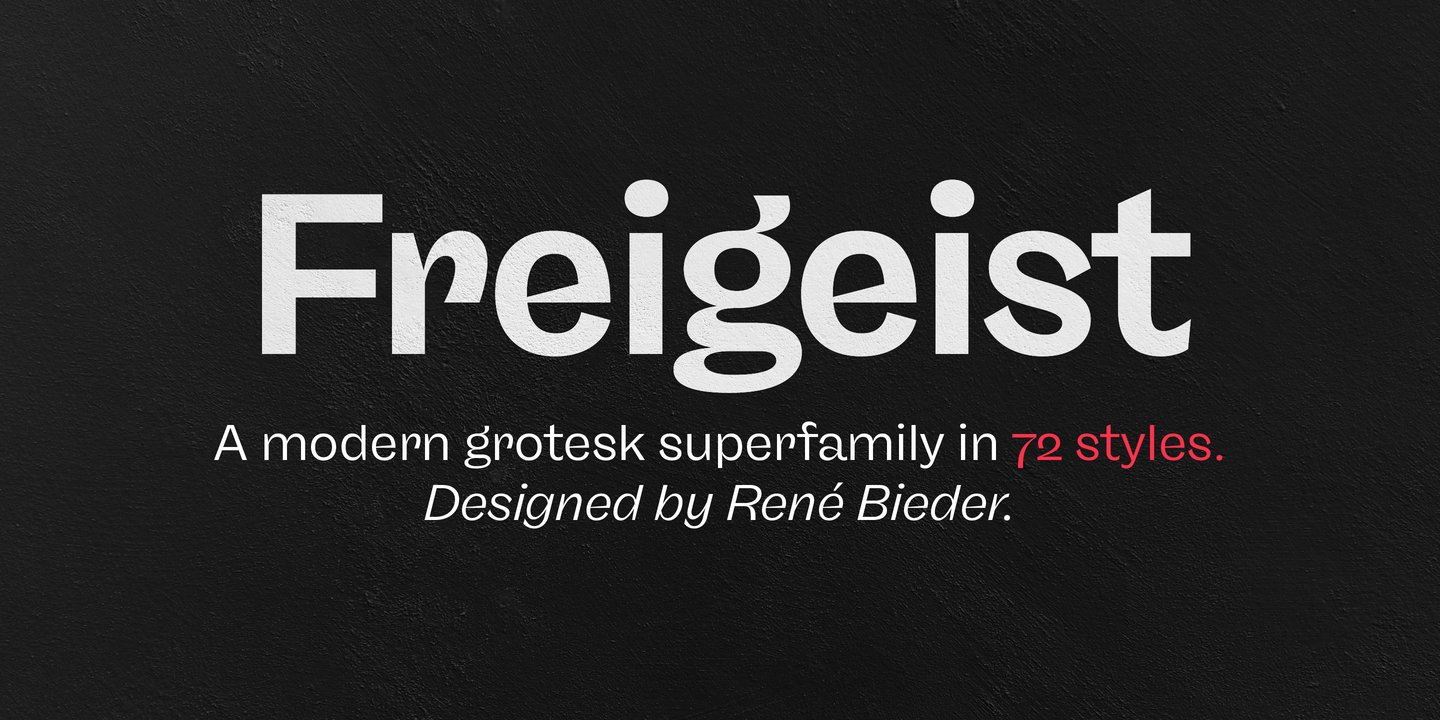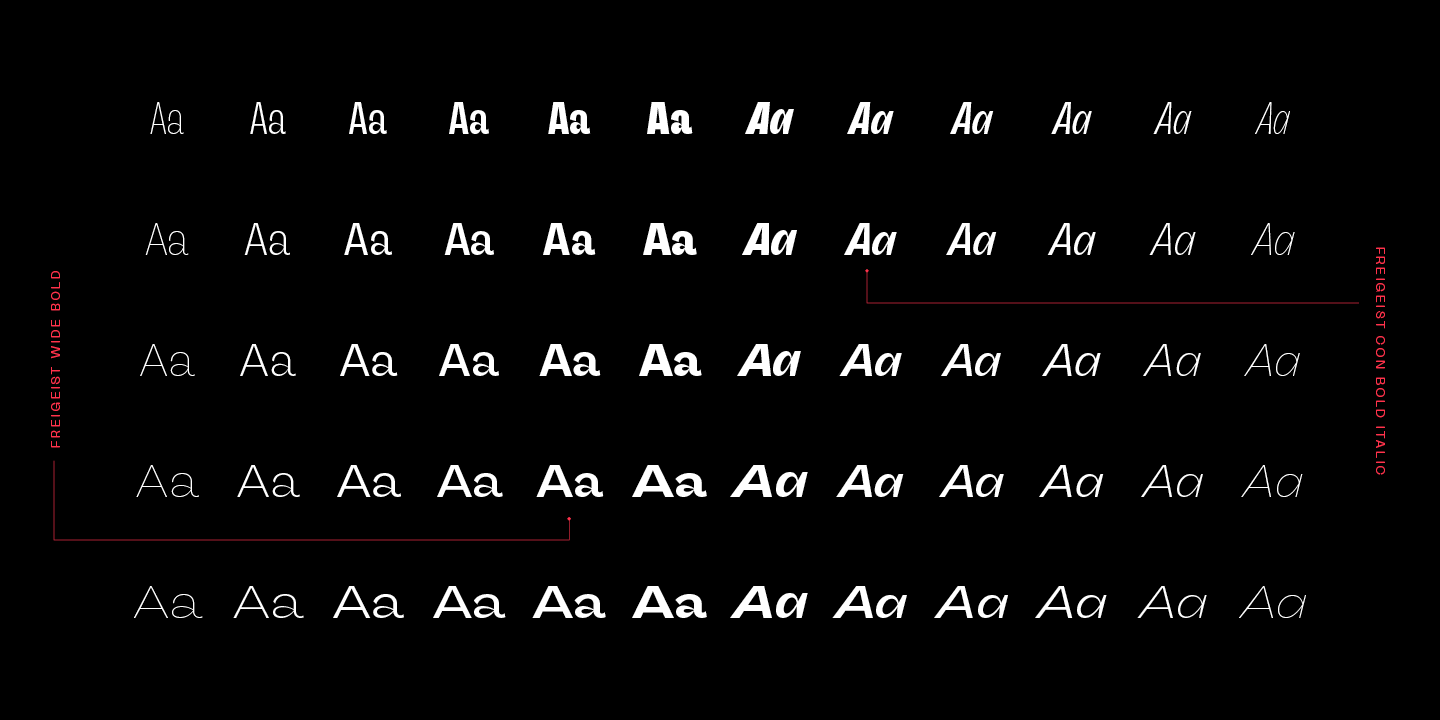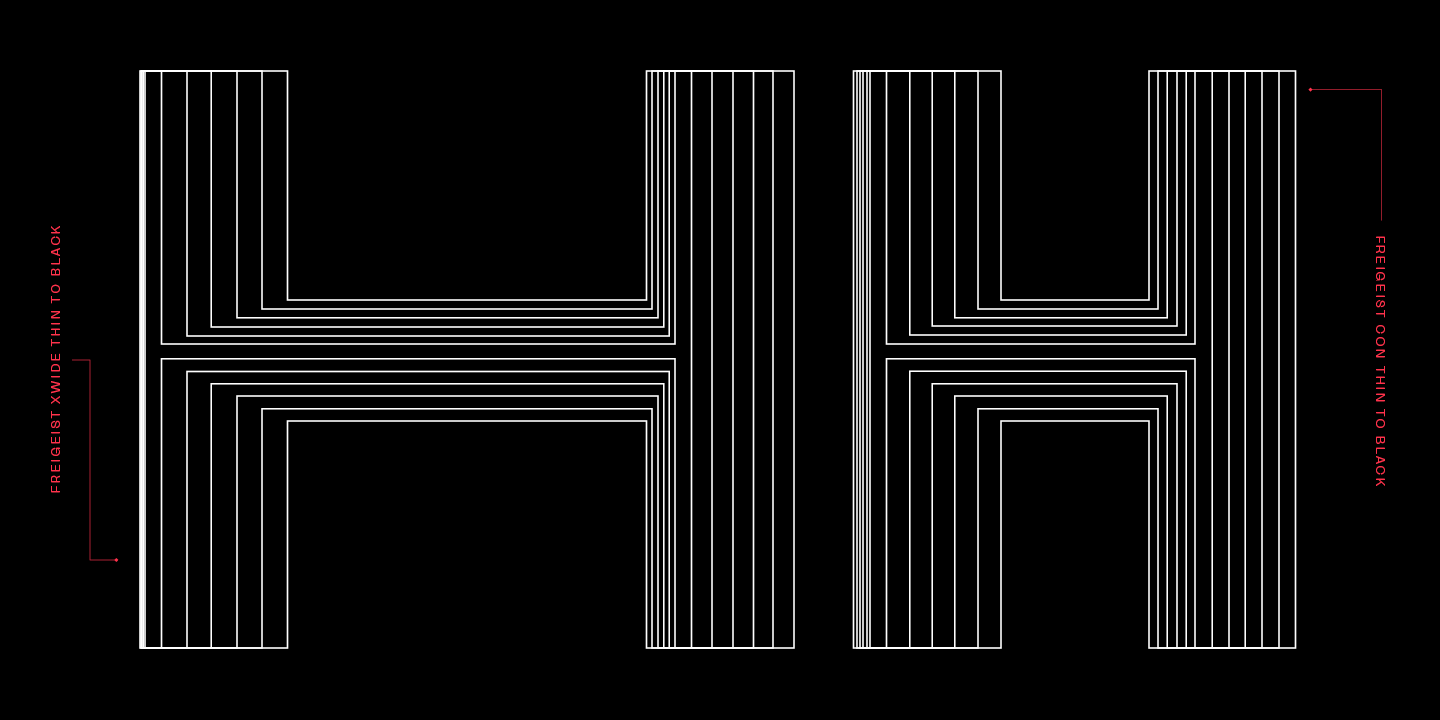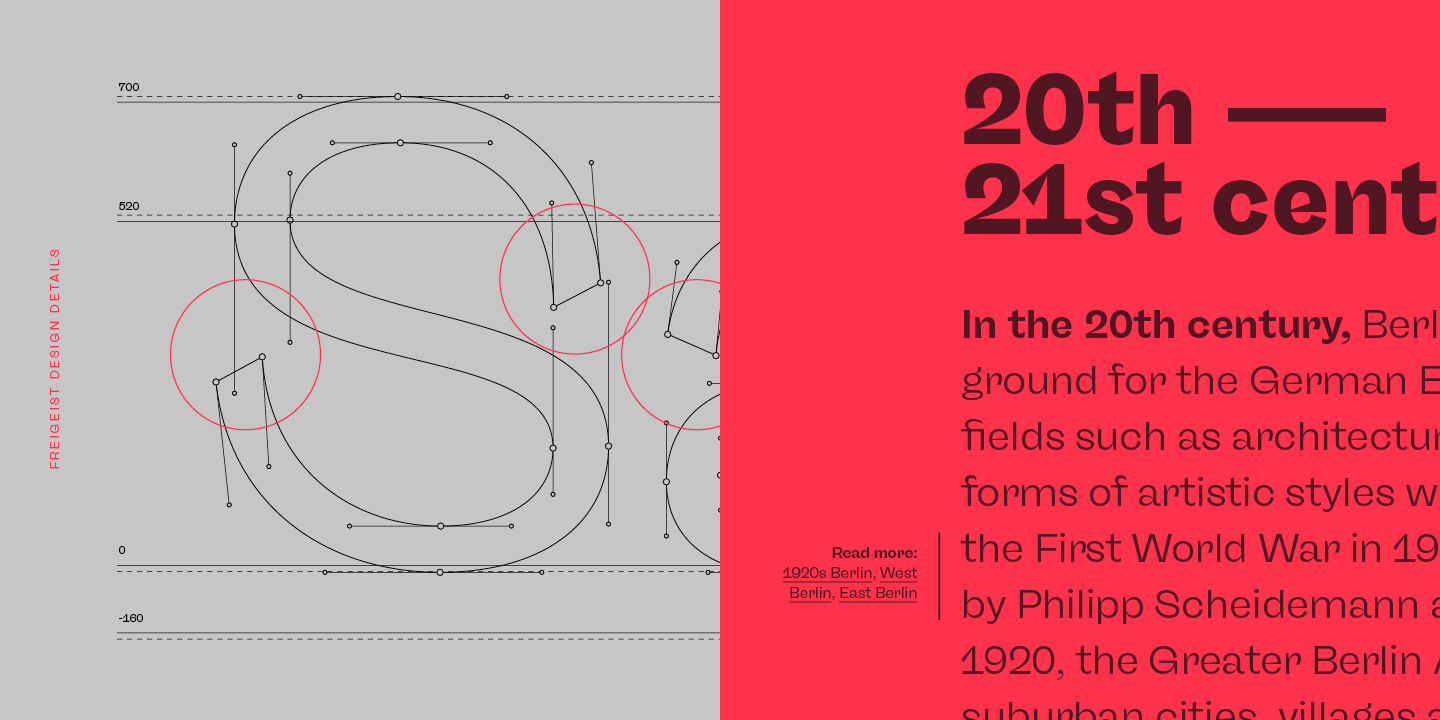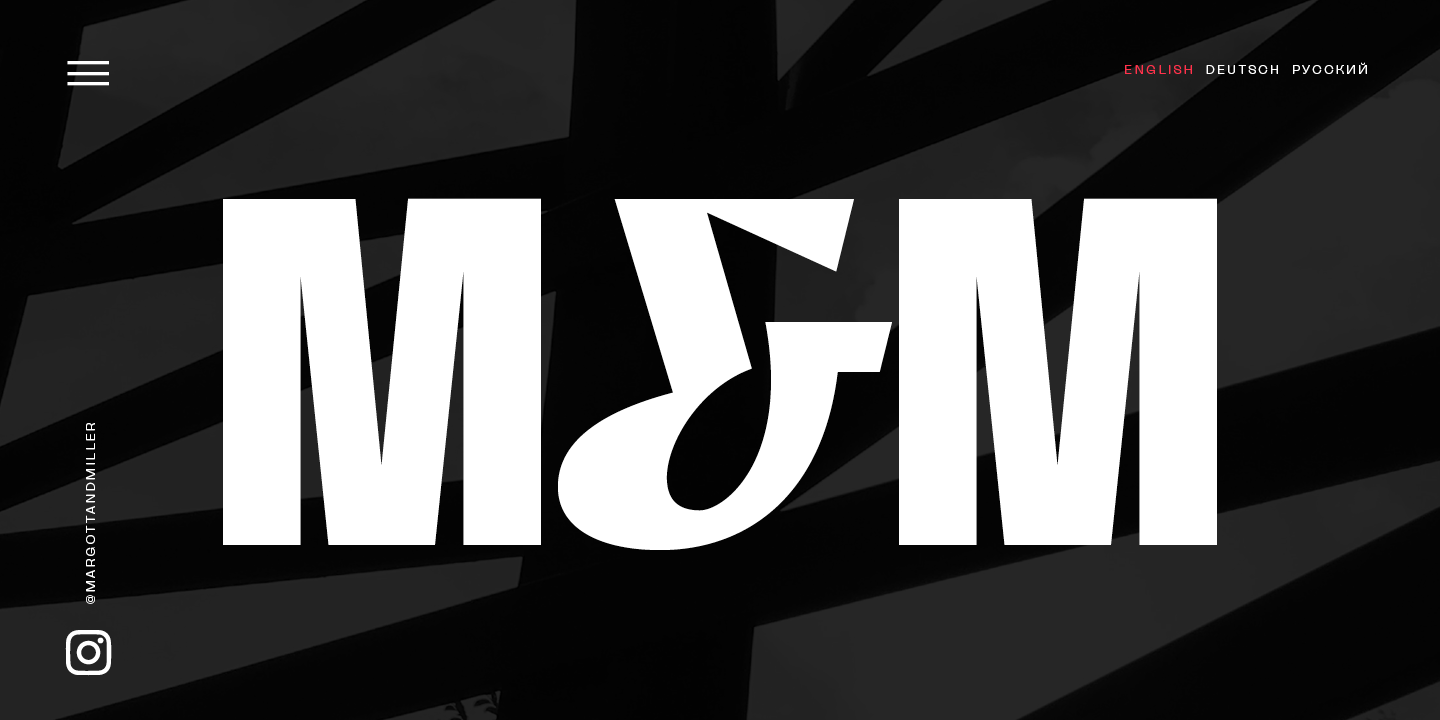
About the Freigeist Font
About Freigeist Font Family The story of Freigeist is a journey into the past, back to the early grotesk fonts and long before Helvetica and Co were standard fonts in operating systems, For what we take for granted today is the result of innovation and pioneering spirit of type foundries such as Caslon or Stephenson Blake in the 19th century, whose expressive designs are mostly forgotten today
The Freigeist family captures this untamed spirit — hence the name (German for “free spirit”) — and puts it into a contemporary context, resulting in a multi-faceted family with a wide range of applications, font styles and features for modern typesetting
Design Details Unlike other modern grotesk typefaces like Helvetica or Univers, Freigeist is characterized by a warm and dynamic appearance, It draws inspiration from various historical models such as Caslon’s Doric or the Grotesque variants of Stephenson Blake
Particularly noticeable are the narrow terminals, the serpentine S or the dynamic g in combination with ascenders that reach to the cap-height only, Italics Many italic grotesk fonts are strongly oriented towards their upright counterparts, Unfortunately, this often means that they cannot do justice to their actual task, which is to highlight words or sections of a text
The italic cuts of Freigeist try to remedy this situation by using the greatest possible formal distance while reinforcing the untamed spirit, What adds to this, is a reminiscent of handwritten forms, which can be found in a, n, y or g, as well as the German sharp s or the ampersand
Alternate Characters Alternative letterforms are ideal for customizing the overall appearance of a text, for usage in logos or they can even work as custom fonts for companies, Freigeist comes with ten stylistic alternatives that are easy to insert via the Opentype window, such as the single-storey a, a tail-less version of the a for compact text, when uses in condensed widths or a dialed down version of the r
Languages Freigeist has a built-in support for Latin and Cyrillic based languages and covers more than 210 languages, Opentype Features and Symbols The family comes with many opentype features to support modern typesetting, This includes ligatures, different number sets or alternative shapes for texts set in all caps